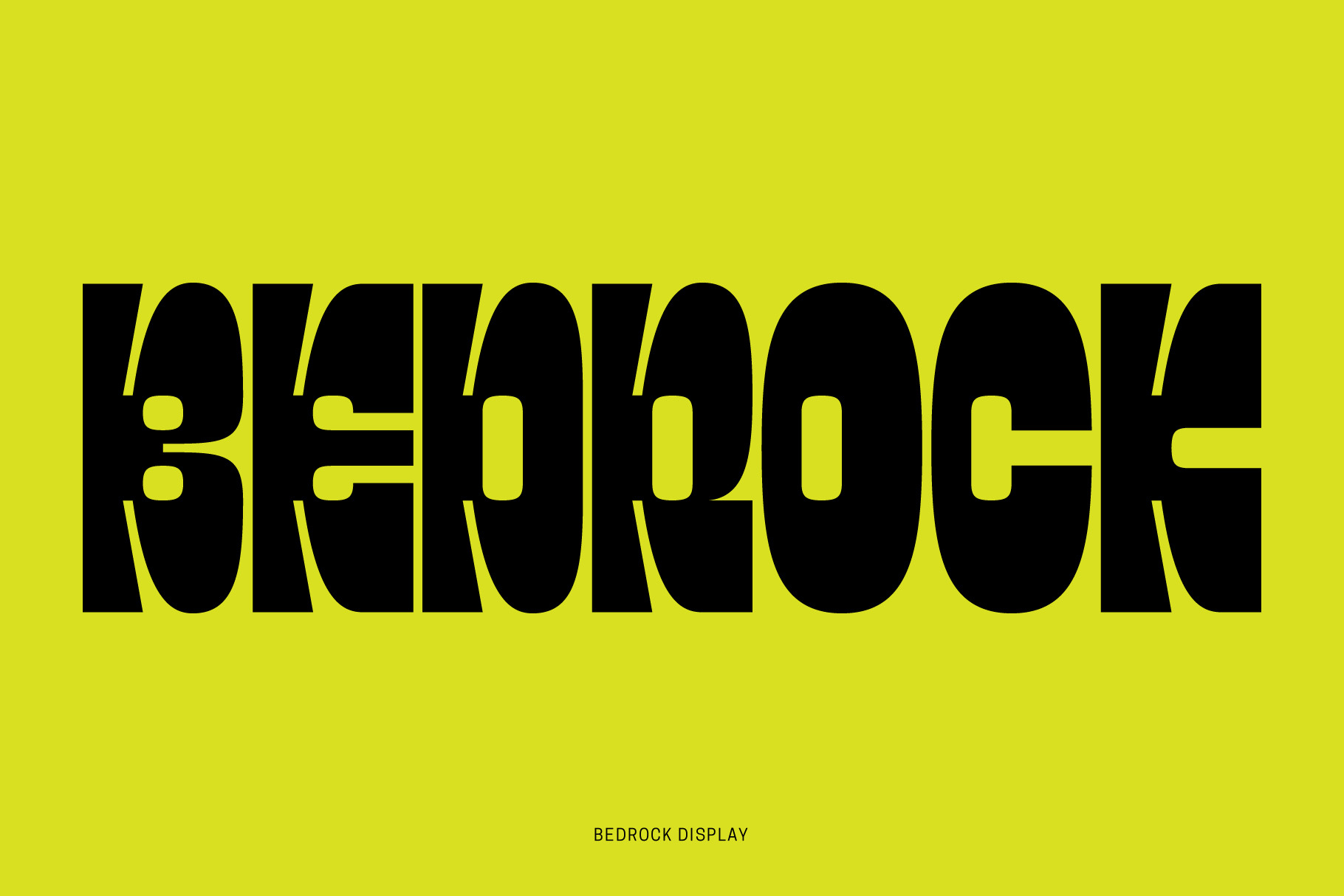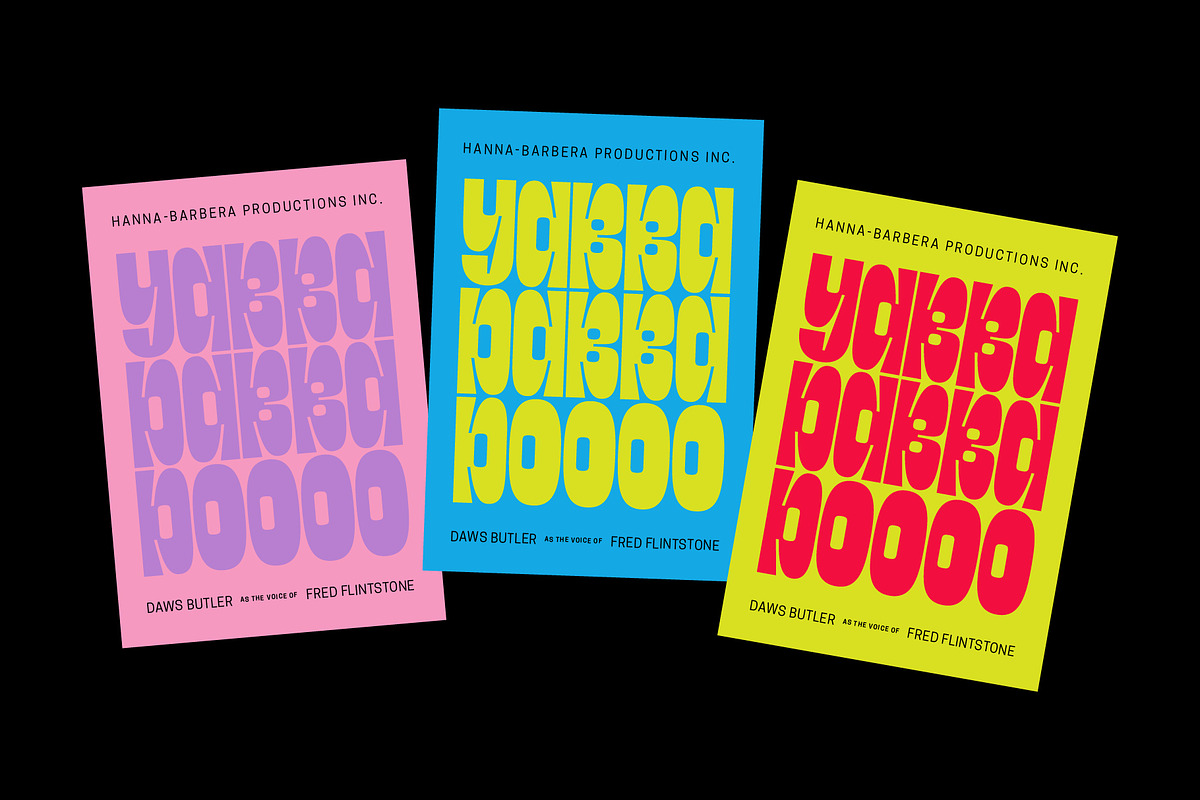
Bedrock Display Font
Bedrock is a display font inspired by Hanna-Barbera cartoon titles of the 1950's,60's & 70's. Bold and punchy, full alphabet from A-Z, complete number set and supporting glyphs.